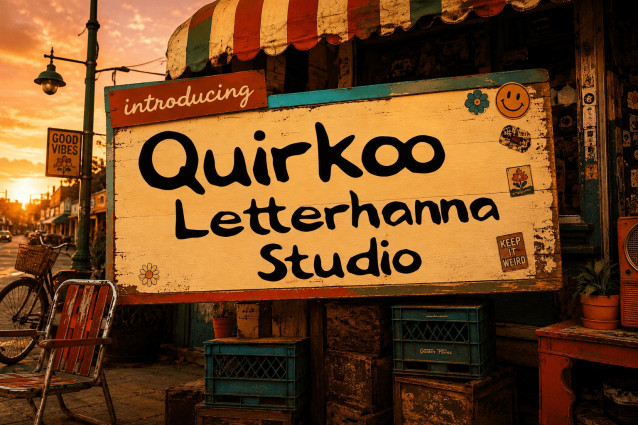
Some fonts simply deliver words. Others walk into the room first.Quirkoo belongs to the second group. With chunky shapes, uneven contours, and a distinctly hand-drawn rhythm, this quirky font turns ordinary lettering into something expressive, cheeky, and impossible to ignore.
Designed with an intentionally imperfect personality, Quirkoo avoids the polished stiffness found in many display faces. Its letters feel drawn rather than engineered. Curves wobble, terminals bend, widths shift, and the baseline moves just enough to create a lively sense of motion. The result is not messy for the sake of being messy. Every irregularity helps the alphabet feel human.